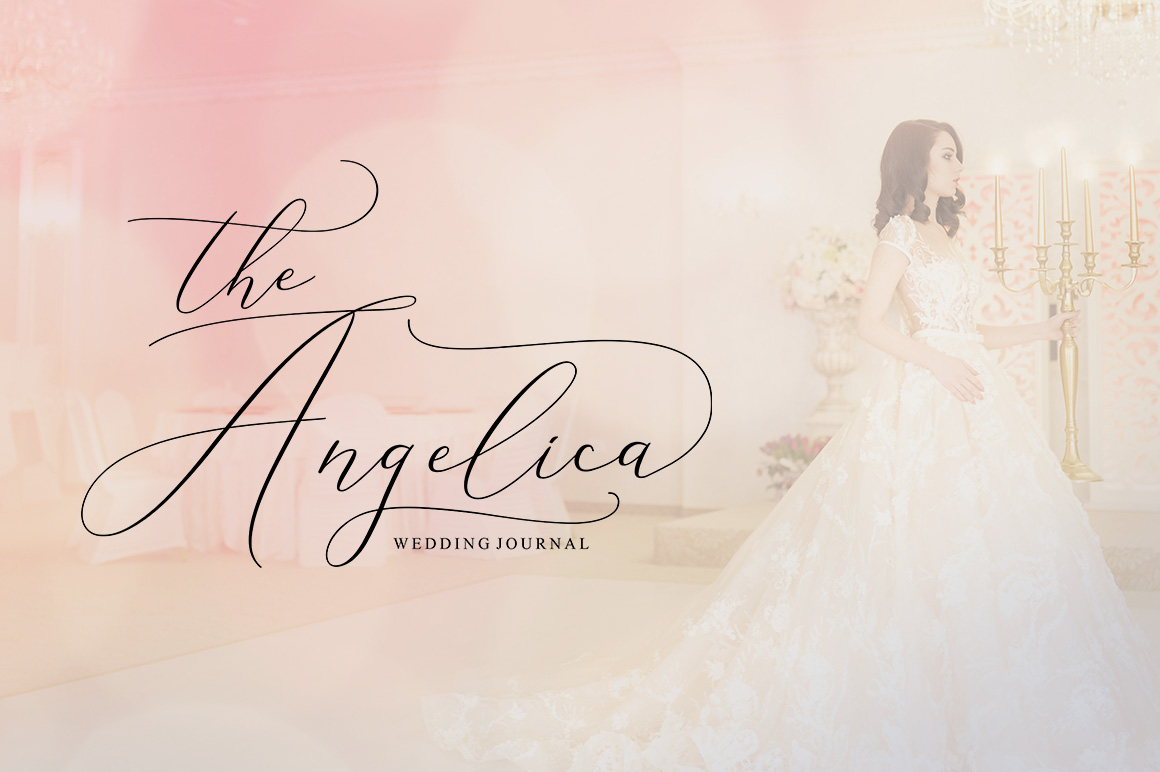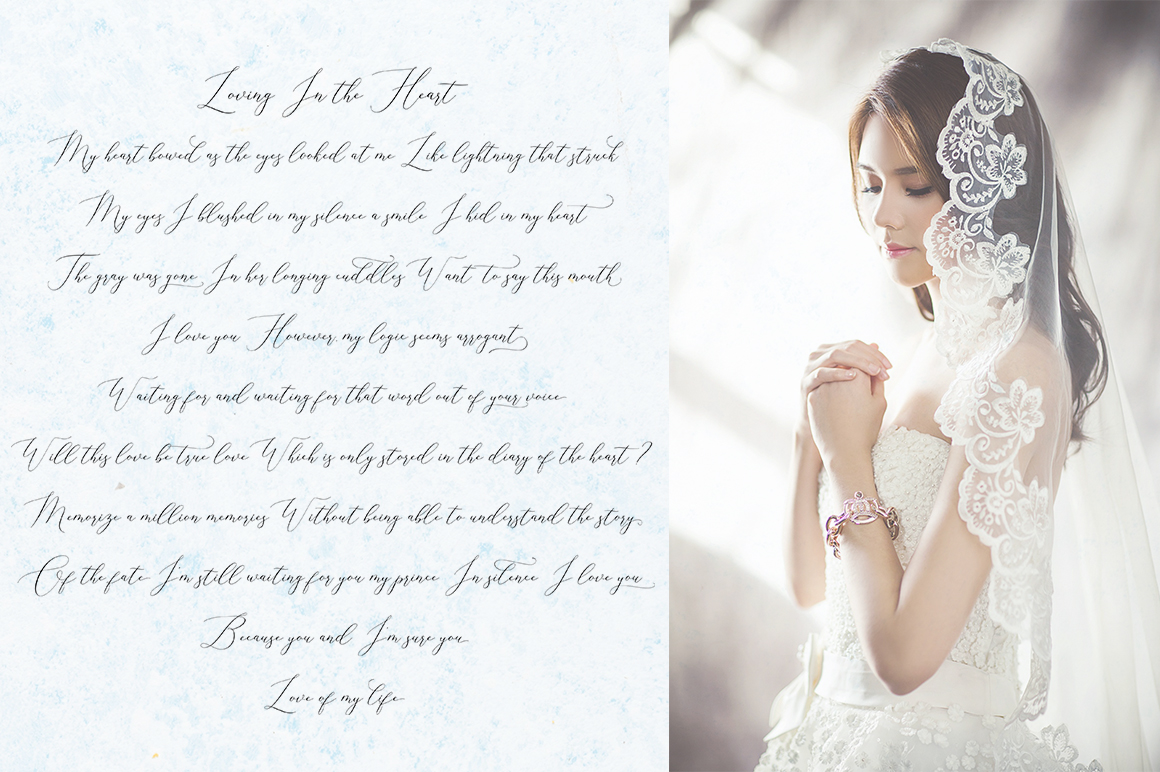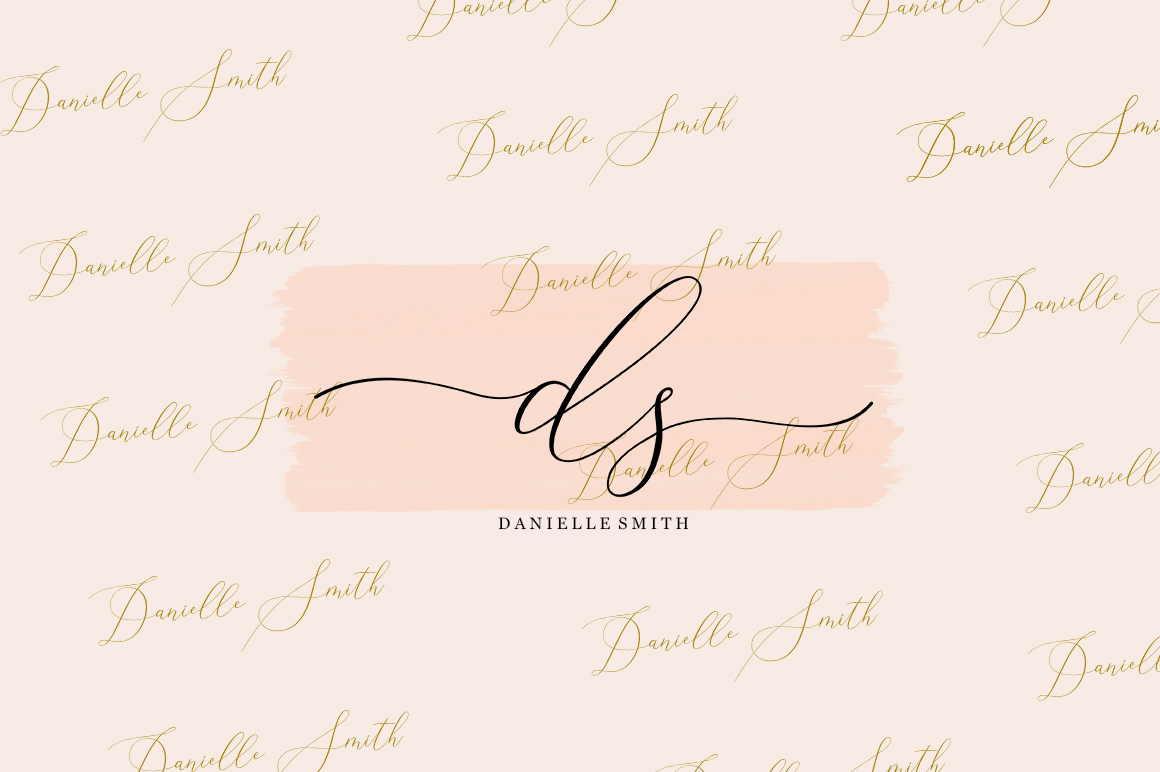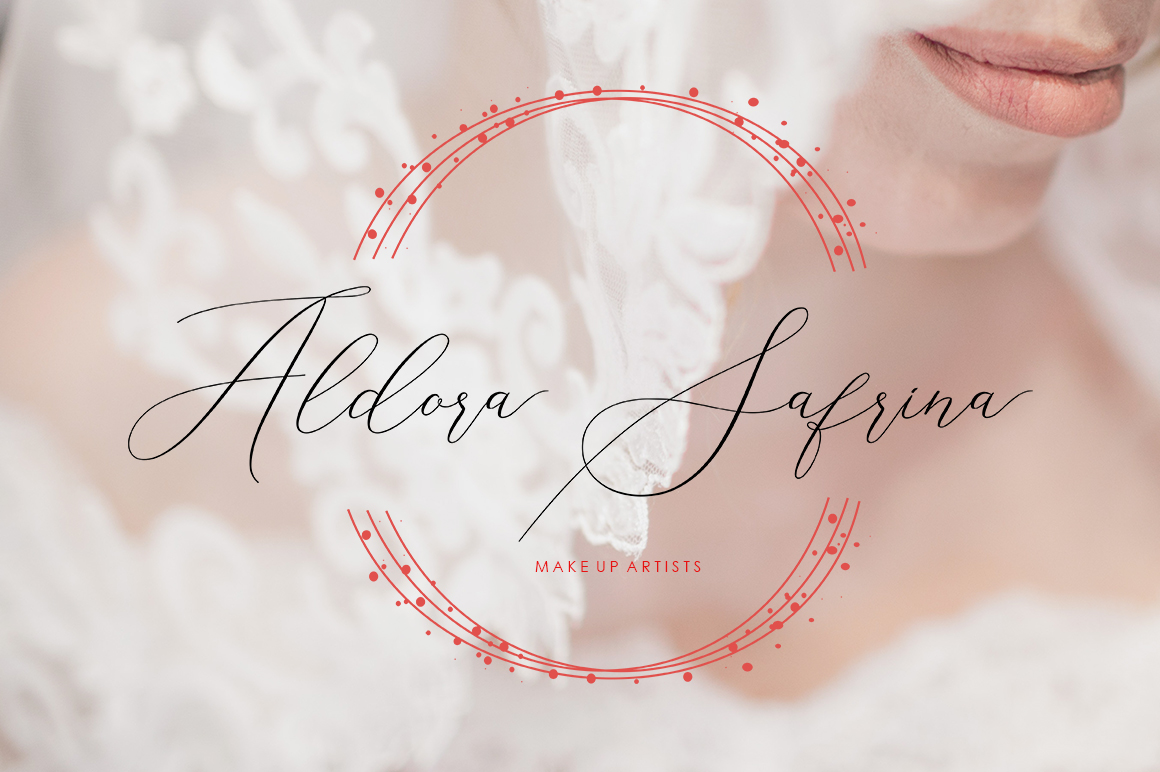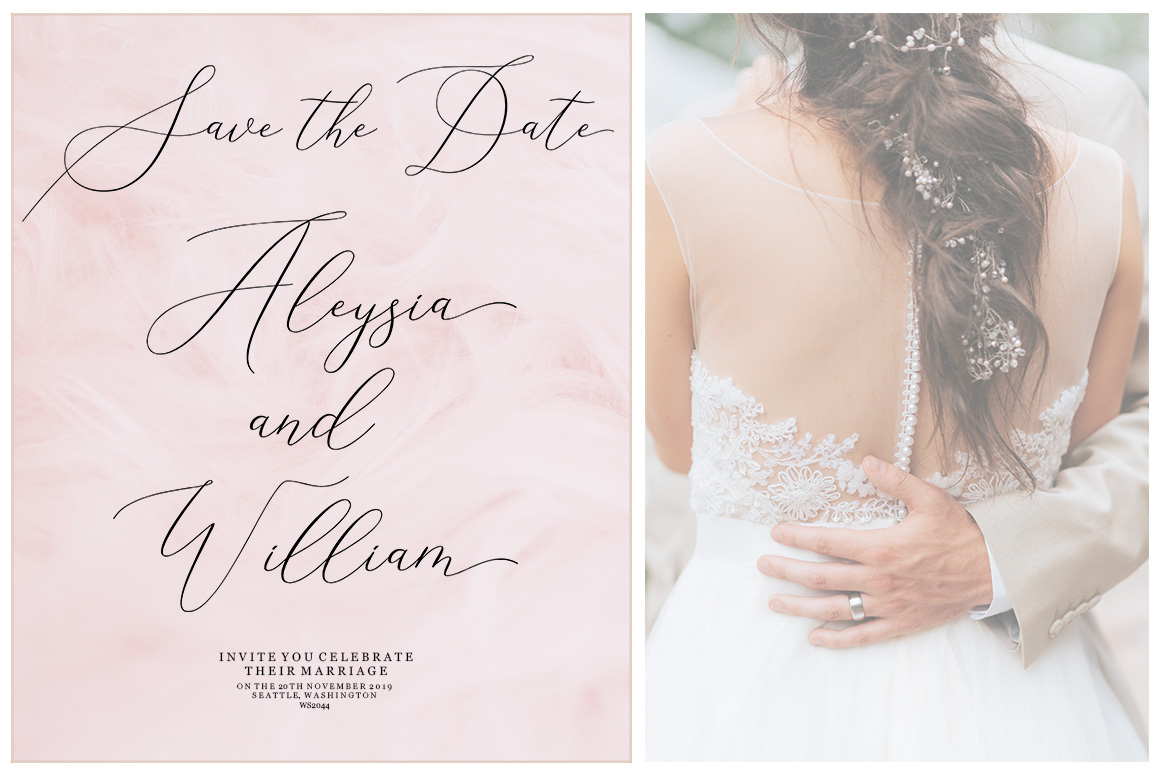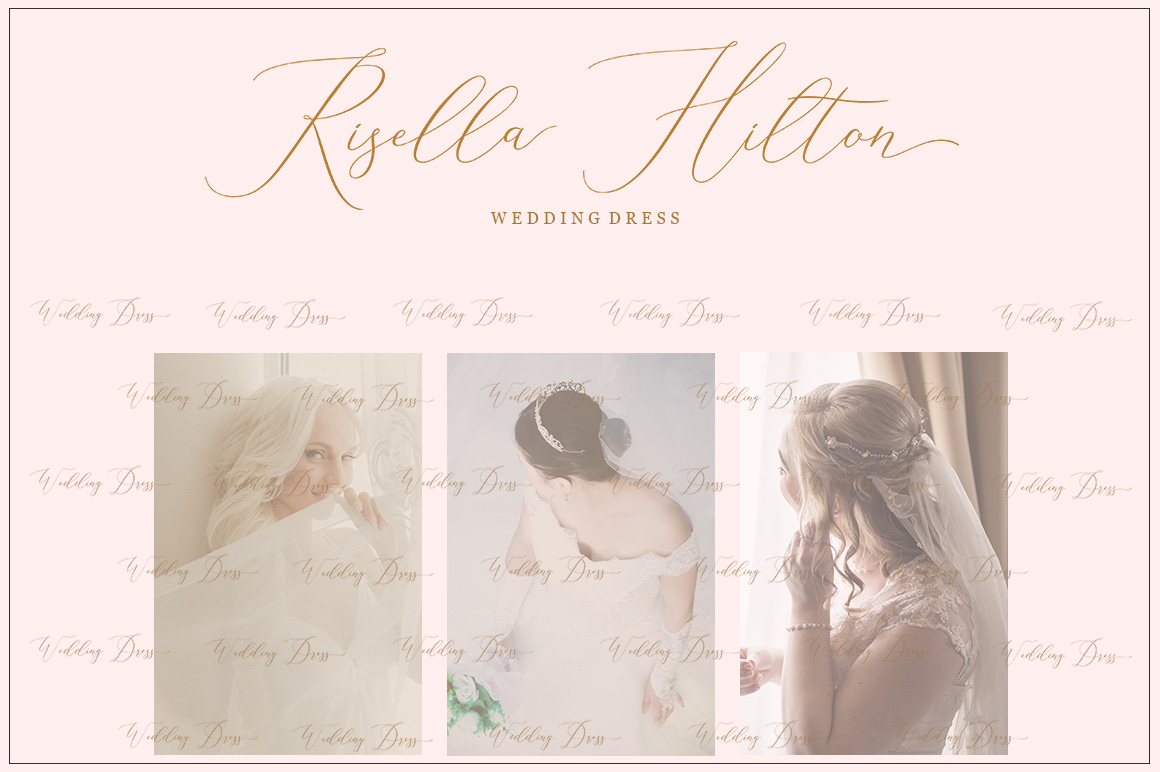
Introduction to Elise Dafisa Script Font
Elise Dafisa is a modern calligraphy font with classic, sophisticated accents that can give your special event projects a romantic and classic touch.
This thin script is ideal for a wide range of uses in both print and digital projects .
Key Features of Elise Dafisa Script Font
Why Choose Elise Dafisa Script Font?